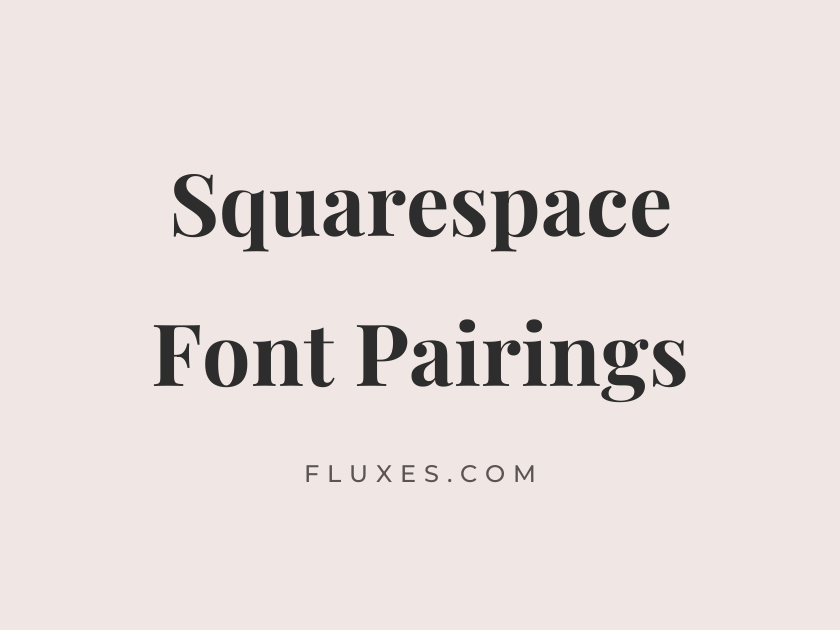
38 Best Font Pairings for Squarespace
Squarespace templates give you full control over typography, which means the fonts you choose do a lot of the work in setting tone before a visitor reads a single word. The pairings below cover the range of moods that Squarespace sites tend to need, from editorial blogs and photography portfolios to boutique shops and wedding invitations, all built from fonts that are free on Google Fonts and easy to set up in the Squarespace font manager.
1. Playfair Display + Public Sans
Timeless Editorial Design
A high-contrast serif headline settles nicely above a plain, workhorse sans for reading.
The classic move: a display serif with real personality set against a body font that disappears into the background. This works for almost any Squarespace blog, portfolio, or magazine-style layout where the headline needs drama but the paragraphs need to stay legible.
2. Fraunces + Inter
Warm Character, Modern Feel
Fraunces brings quirky, buttery curves while Inter keeps the text crisp and neutral.
Fraunces has enough personality to carry a homepage hero without tipping into novelty, and Inter’s tight, screen-optimized letterforms ground it. Creative studios and design portfolios lean on this combination often.
3. DM Serif Display + DM Sans
Made To Sit Together
Because both fonts share a foundry and a design brief, their proportions line up naturally.
These two were drawn as companions, so x-heights, spacing, and mood already match before you touch a single setting. It suits boutique shops and small business sites that want polish without a lot of fuss.
4. Cormorant Garamond + Lato
Understated Bridal Elegance
A delicate, high-contrast serif needs a humanist sans with enough weight to stay readable.
Cormorant Garamond’s thin strokes read as refined rather than fragile once Lato’s sturdier body text is underneath it. This is a dependable choice for wedding sites, invitations, and other romantic Squarespace pages.
5. Abril Fatface + Poppins
Bold Fashion Statement Headline
A heavy didone display gets balanced by a geometric sans with even, friendly proportions.
Abril Fatface has enough weight and contrast to anchor a fashion or beauty homepage, and Poppins keeps the supporting copy modern instead of decorative. Good for e-commerce landing pages that need one loud moment.
6. Bodoni Moda + Nunito Sans
Modern Luxury Retail Look
Sharp vertical contrast in the headline is softened by a rounded, approachable body font.
Bodoni Moda gives off high-fashion energy, and Nunito Sans keeps product descriptions and navigation from feeling cold. This pairing suits premium Squarespace shops selling apparel, cosmetics, or home goods.
7. Libre Baskerville + Karla
Personal, Bookish, Trustworthy
An old-style serif headline pairs comfortably with a low-key grotesque built for the web.
Libre Baskerville was drawn for screen reading, so it never feels stiff, and Karla’s understated character keeps things from competing with it. It is a natural fit for personal blogs and writer sites.
8. Space Grotesk + Inter
Startup Energy, Clean Systems
Two grotesques from the same technical family share a skeleton, so the pairing never fights itself.
Space Grotesk’s slightly quirky details give a tech or SaaS homepage some character, while Inter handles dense product copy without friction. A common combination on Squarespace sites for startups and digital products.
9. Archivo Black + Archivo
Confident Agency Statement
Using one type family at two extremes guarantees the weights and spacing already agree.
Pulling the heading and body from the same family removes any guesswork about whether the styles will clash. This approach reads as confident and organized, suiting agency and consulting sites.
10. Oswald + Open Sans
Direct, Efficient Service Pages
A tall condensed headline saves vertical space while a wide, open sans keeps paragraphs breathable.
Oswald compresses well into banners and navigation without losing legibility, and Open Sans is about as dependable as body text gets. Real estate listings and local service businesses use this pairing frequently.
11. Raleway + Merriweather
Light, Airy Portfolio Feel
A geometric sans headline sits above a warm serif built specifically for comfortable reading.
Raleway’s thin, elegant letterforms work well at large display sizes, and Merriweather’s sturdier curves keep longer paragraphs from feeling thin. Consider this for lifestyle blogs with substantial written content.
Check a pairing at mobile widths before committing, since some display serifs and scripts lose detail or legibility when scaled down.
If a pairing feels flat, adjust letter spacing and weight before swapping fonts entirely; small tracking and weight changes often resolve contrast issues on their own.
Keep body copy in a font with a tall x-height and simple letterforms, since Squarespace templates often run text at 15 to 18 pixels where subtlety gets lost.